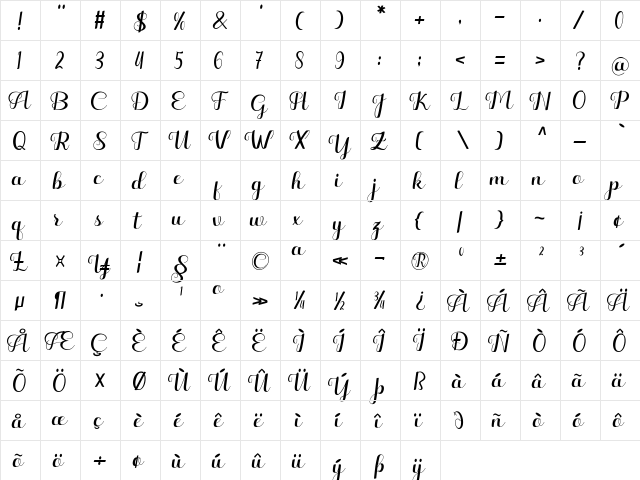
Hello Kayla bba key
Design Context for Hello Kayla Typeface
Hello Kayla is a composed and adaptable typeface that performs quietly and consistently across a wide range of design contexts.